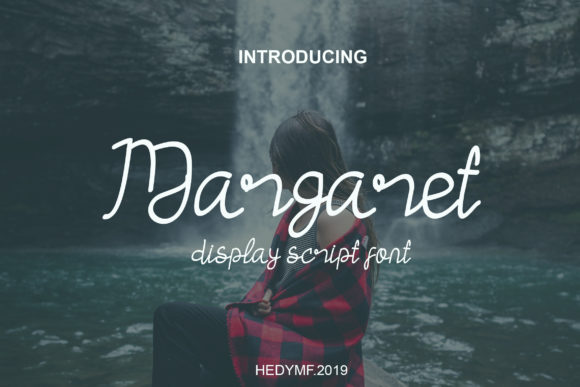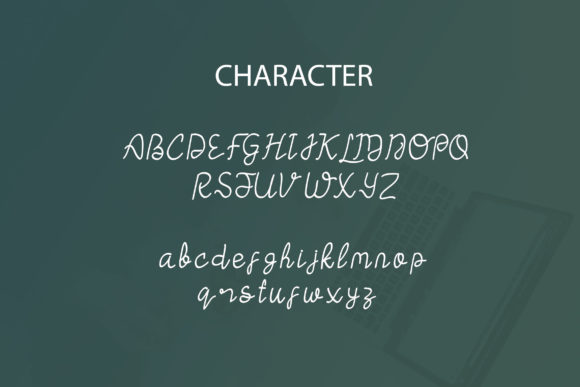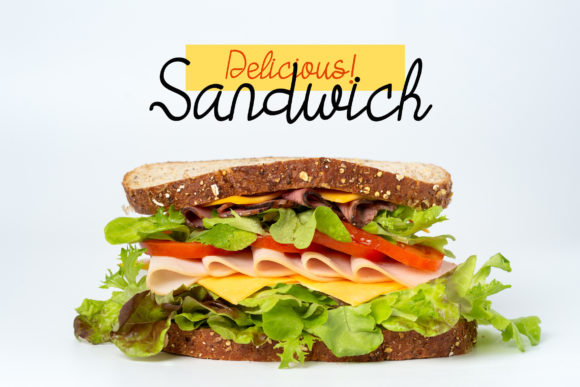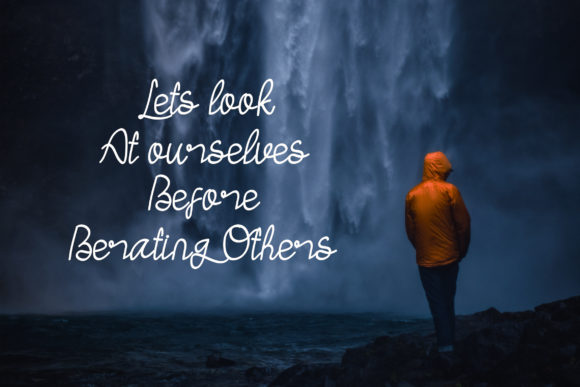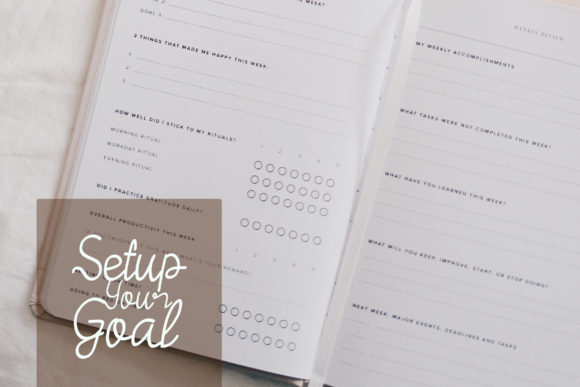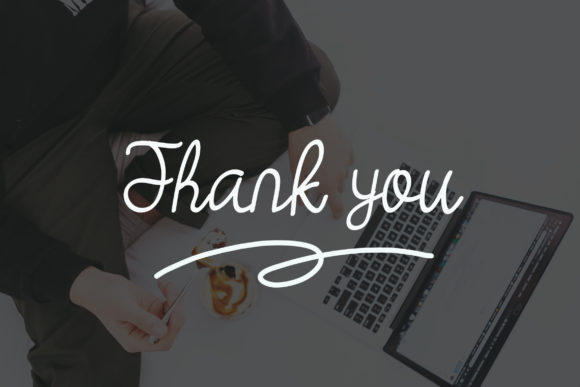
Margaret Font
About Margaret Font
Margaret is delicate, yet sophisticated handwritten font with a unique touch. It will put a contemporary spin on any design project.